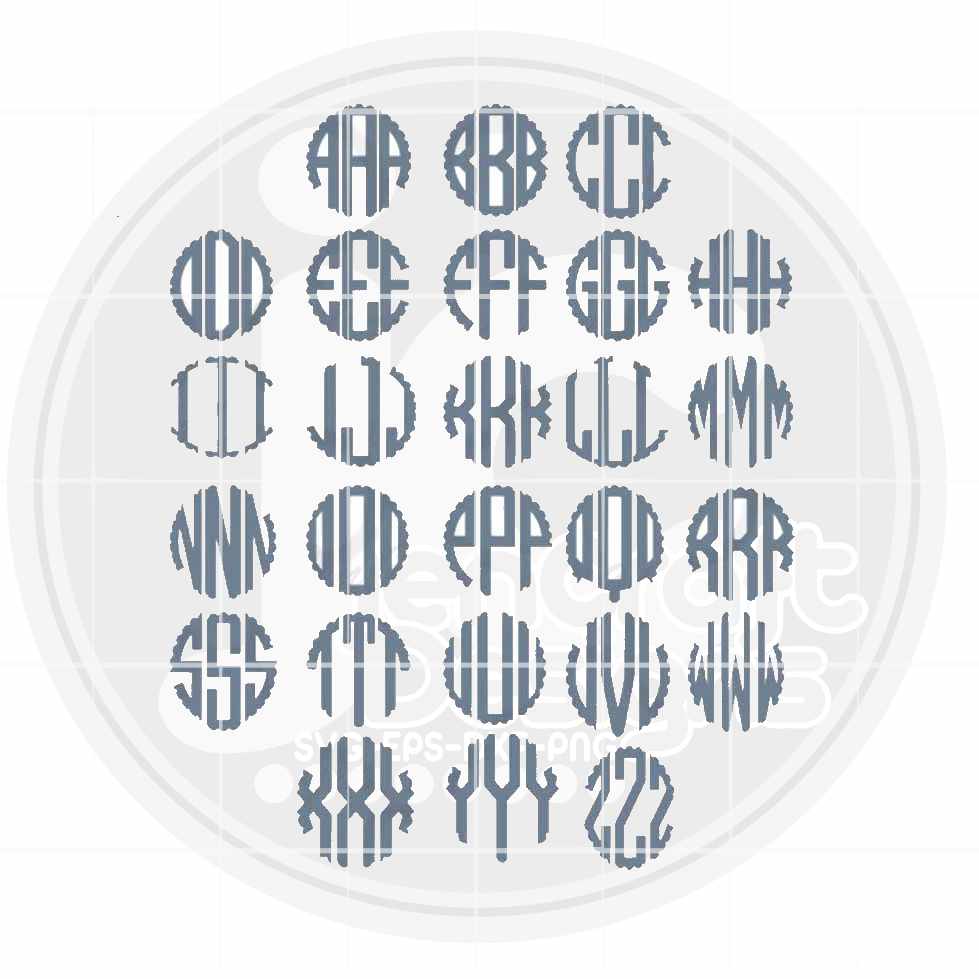
Create beautiful scalloped monograms with ease! Simply install this Scalloped Monogram Font on your computer and type out your letters — no more uploading individual letter files into your cutting software. Works with Cricut, Silhouette, Adobe, and more. Instant digital download!
- Type lowercase for the outside letters and UPPERCASE for the center letter to achieve the classic monogram look